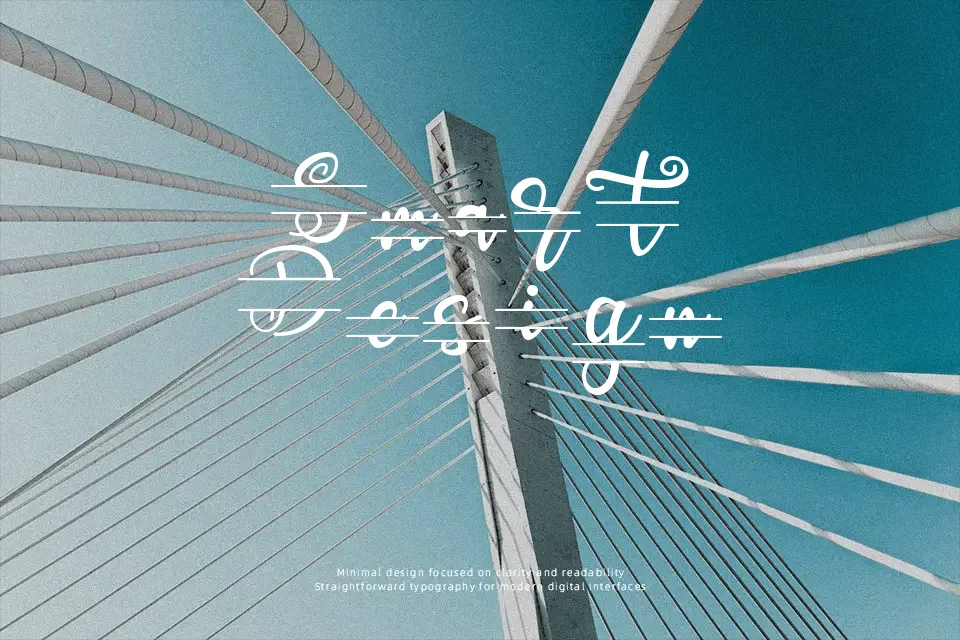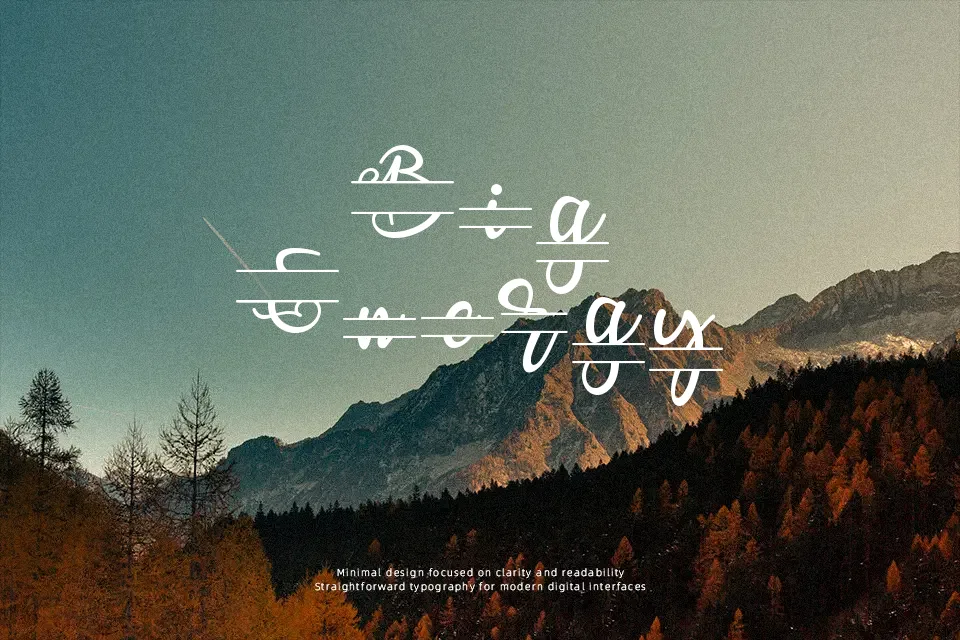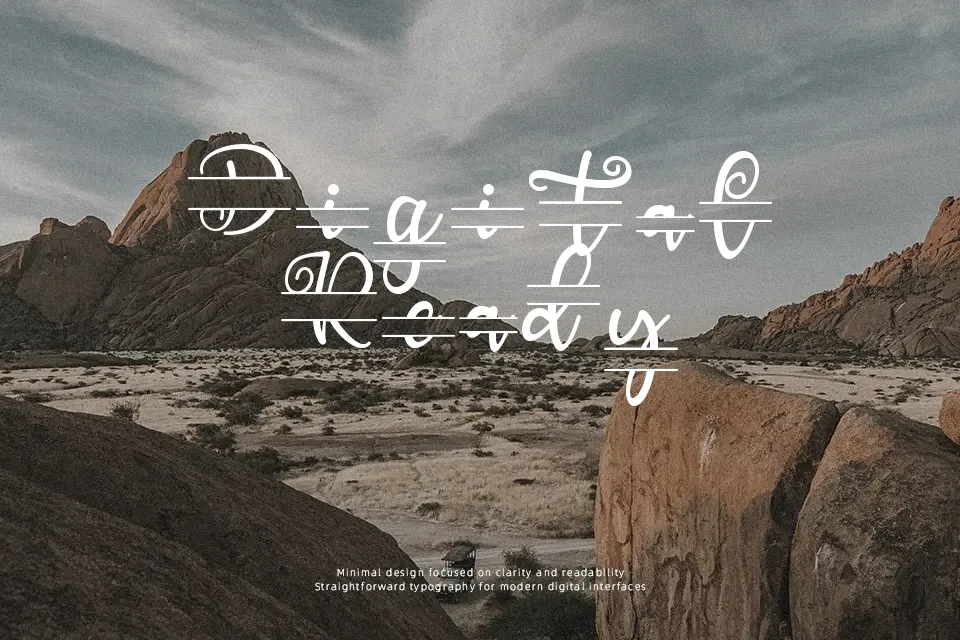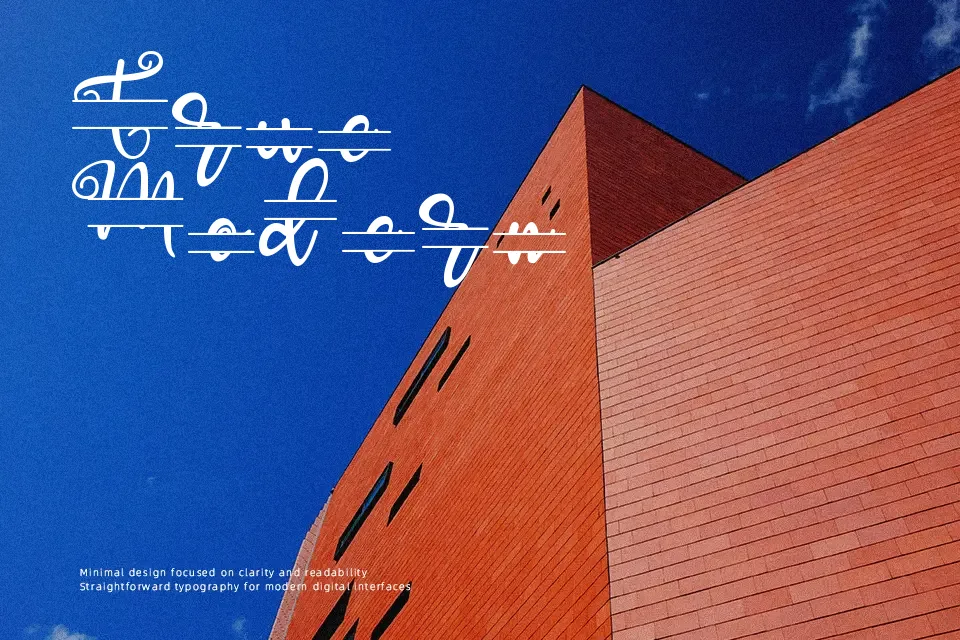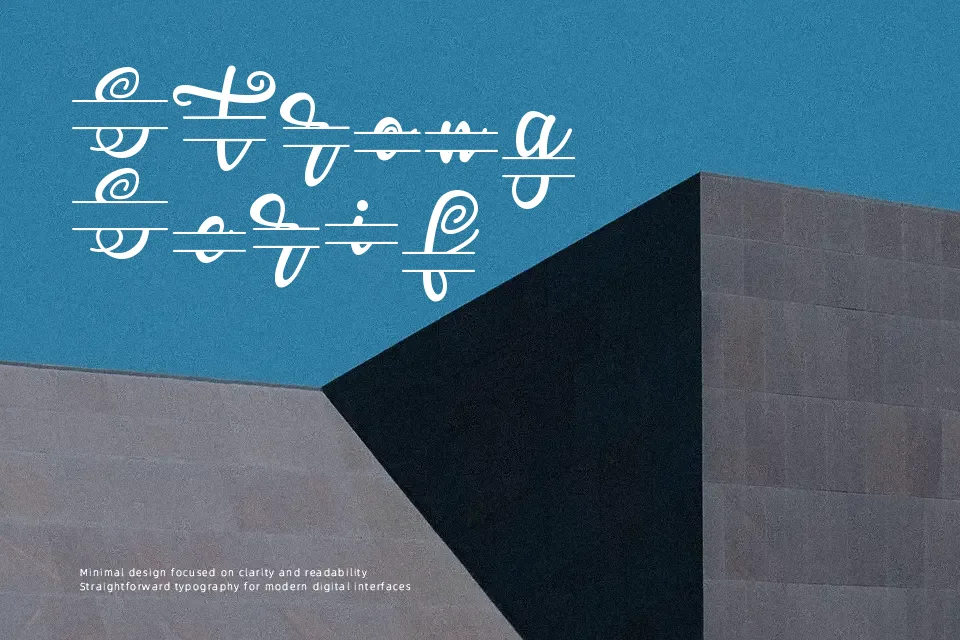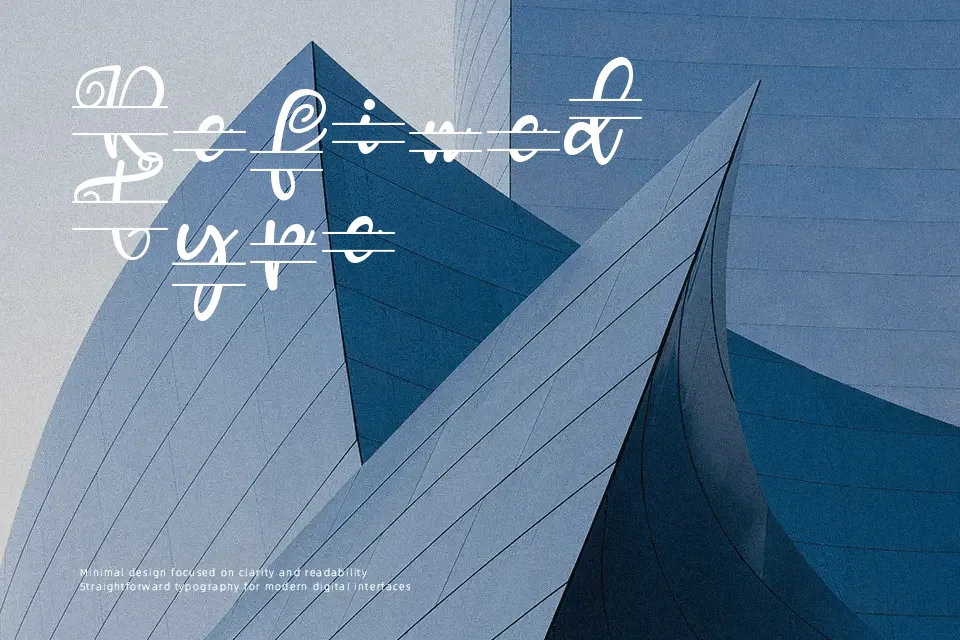
Aster Monogram Font
Designed by Letterara
Each letterform in Aster Monogram is constructed with layered ornamental strokes, designed to stand alone as a visual centerpiece rather than flow as connected text. The style leans heavily decorative — think engraved initial plates or embossed stationery headers — with tight internal spacing that rewards large-scale use. It performs well on wedding invitations, monogrammed packaging, and personalized merchandise where one or two initials do the heavy lifting. That said, the high ornamentation makes it essentially unreadable at small sizes, and it falls apart entirely in body text or multi-word settings. If your project needs more than three characters to read clearly, this font will fight you.
Best For:- Wedding invitation monogram headers
– Personalized gift tags and packaging labels
– Embroidered or engraved initial designs
– Luxury stationery cover letters
Not Ideal For:- Body text or paragraph-length copy
– Digital UI labels or navigation elements
– Long titles requiring full word legibility
– Corporate documents needing clean readability
Perfect for branding, business card, and invitation, with a classic and decorative style.